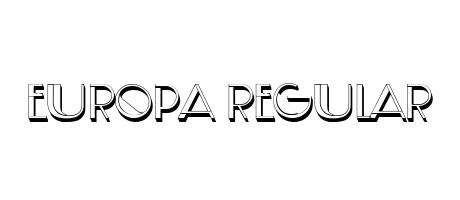
Europa
Europa Regular: A sans-serif font with a bold, futuristic feel. Its clean lines are enhanced by subtle, parallel inner strokes creating a three-dimensional, almost embossed effect. The letters are evenly spaced, conveying a sense of order and precision. The overall impression is one of sleek modernity and confident simplicity.